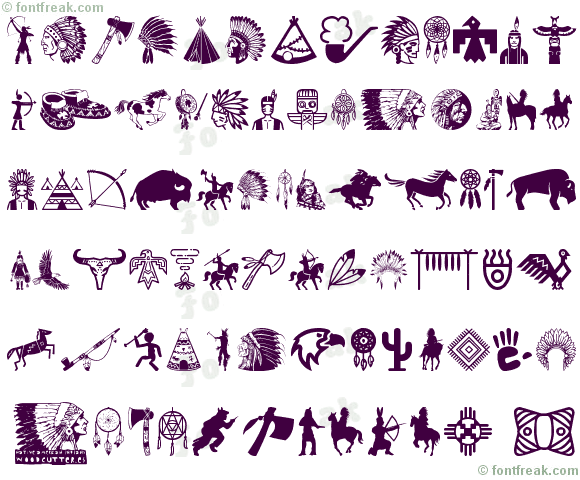
Native American Indians
The Native American Indians font by woodcutter Manero is a unique decorative typeface that captures the spirit and heritage of Indigenous cultures. This font features bold, expressive strokes that reflect the strength and artistry found in Native American traditions. The design incorporates intricate details and symbolic elements, creating a visually striking appearance that stands out in any context. The contrast in stroke weight adds a dynamic quality, while the spacing between characters ensures legibility without sacrificing style.
This font is ideal for a variety of creative projects. Graphic designers can utilize the Native American Indians font for wedding invitations, where its cultural significance can add a meaningful touch to the event. Additionally, it works beautifully for movie posters that seek to convey themes of adventure or exploration within Indigenous narratives. Small business owners can enhance their restaurant menus with this font, creating an inviting atmosphere that reflects a rich heritage. Content creators looking to add flair to their digital projects, such as blogs or social media graphics, will find this typeface a perfect fit for storytelling that honors Native American culture.
What sets the Native American Indians font apart is its ability to blend artistic expression with cultural heritage. Its bold, decorative design serves not only as a visual element but also as a tribute to the traditions and stories of Indigenous peoples. This font provides a unique opportunity to celebrate and honor these narratives through design.